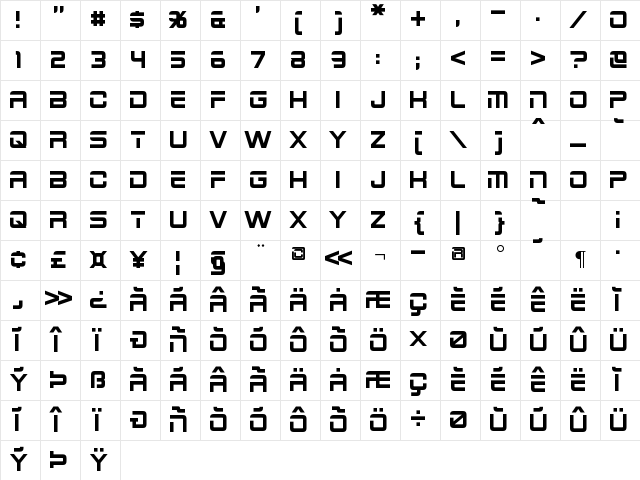
Complete 2015 Cruiser Regular glyph index. Displaying only characters natively supported by 2015 Cruiser Regular font.
2015 Cruiser is a composed and adaptable typeface that performs quietly and consistently across a wide range of design contexts.